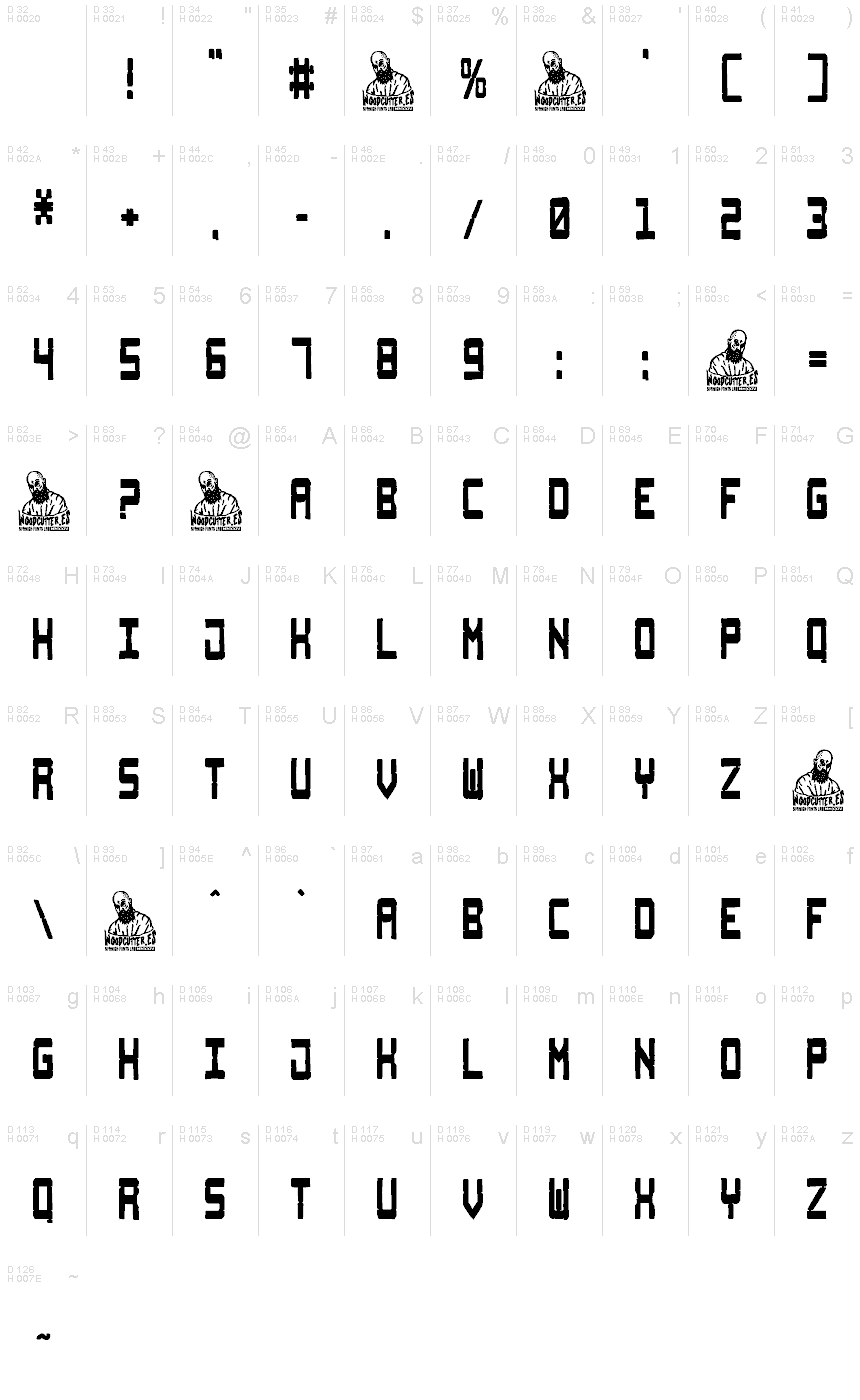
Right Block
Right Block font by Woodcutter is a free display font with a distressed, industrial design. Featuring a rugged aesthetic, the font has a strong presence and bold appearance that demands attention. This condensed font doesn’t take much space yet still brings personality to enhance your typography projects.
Use Right Block almost anywhere! Consider intriguing logo designs, food packaging stickers, website headers banners & posters, book & magazine covers, lockups for branding / visual identity design projects among so many other possible ideas.